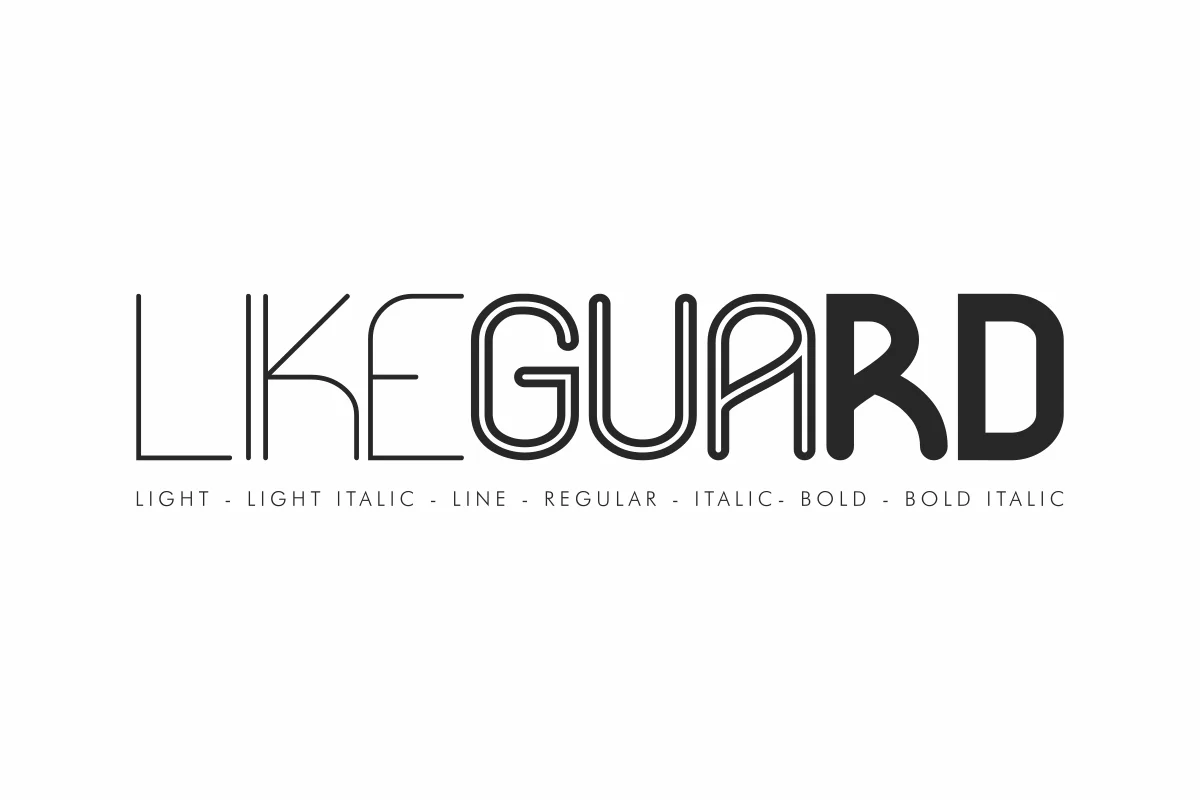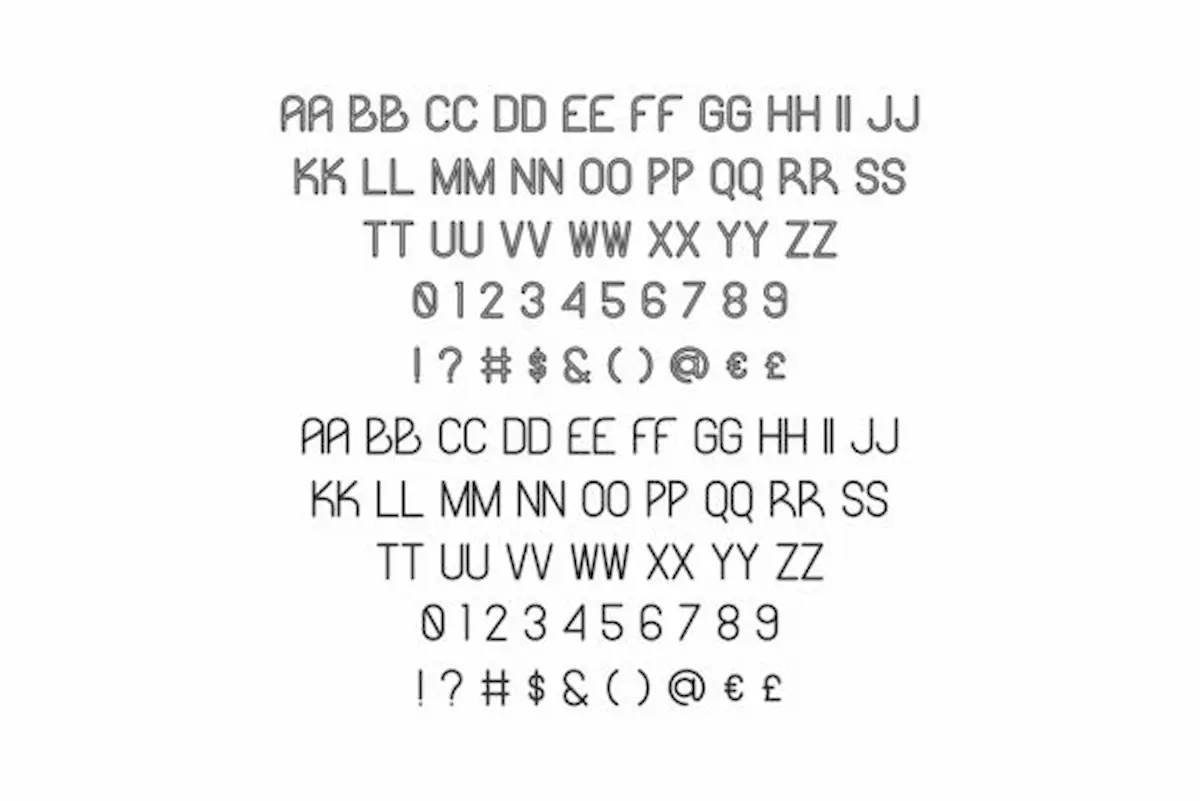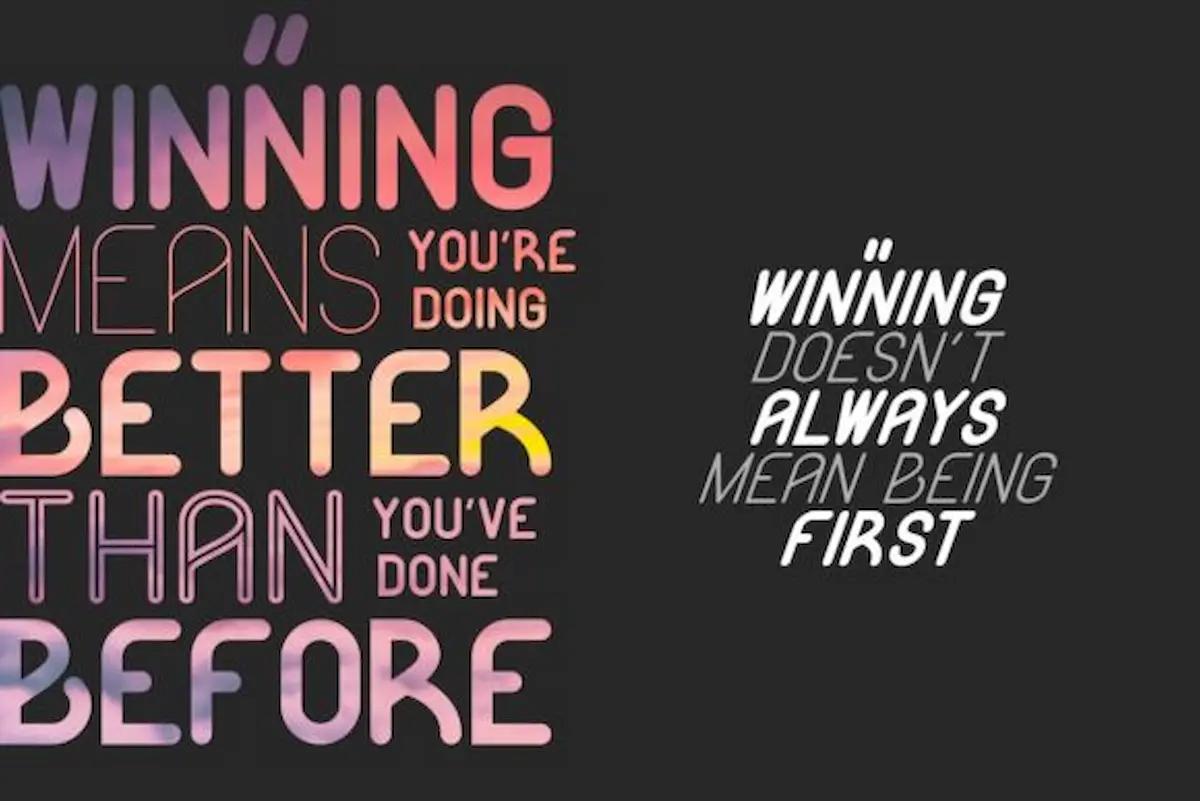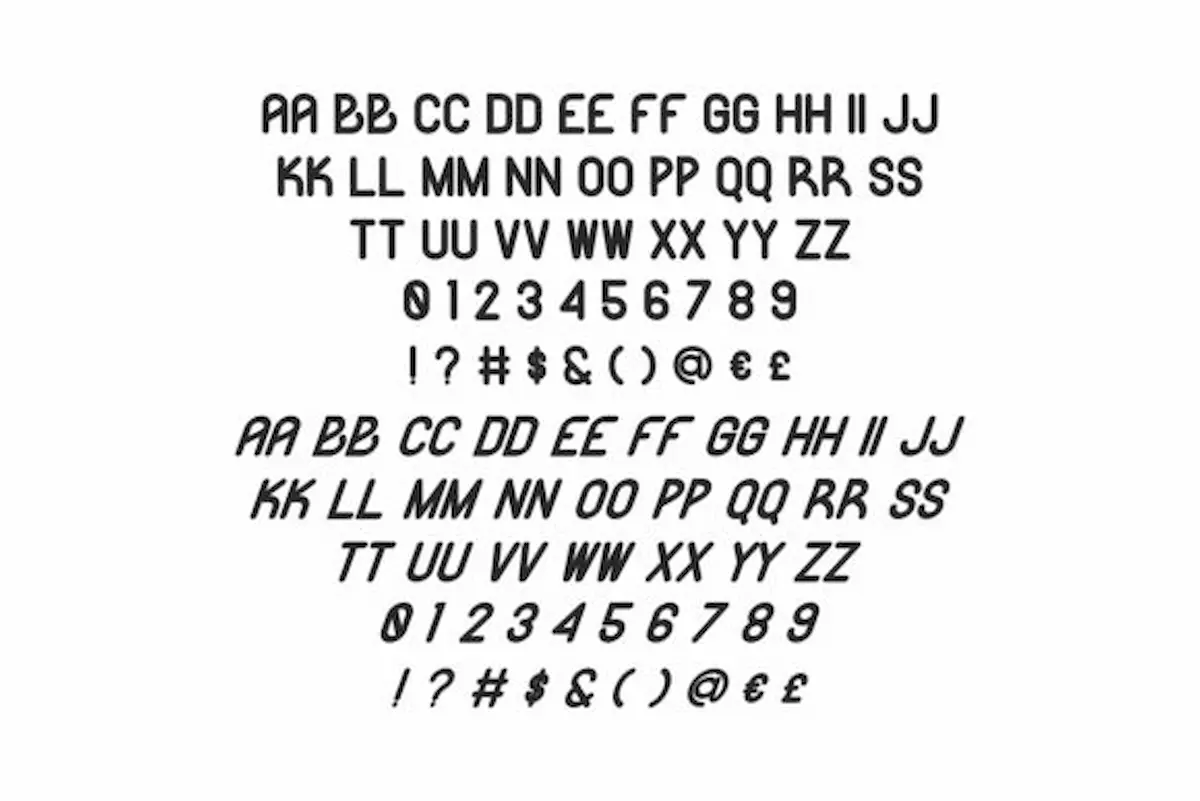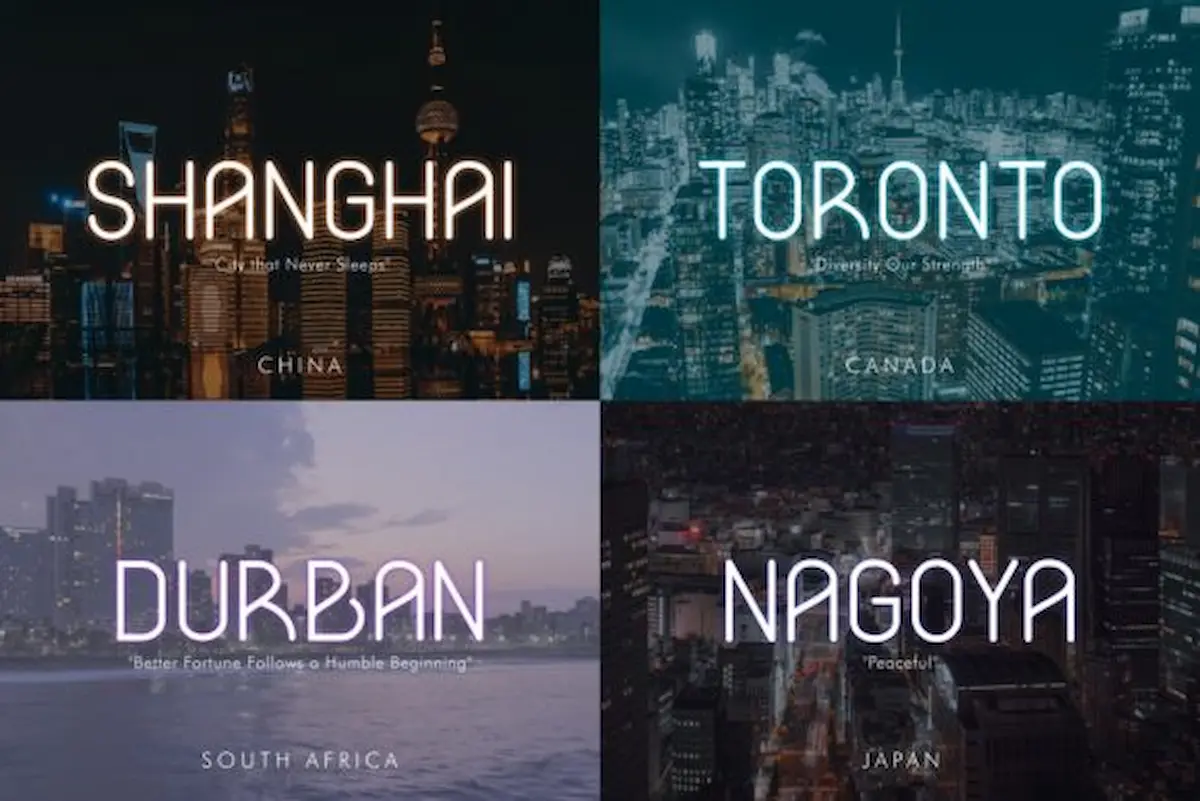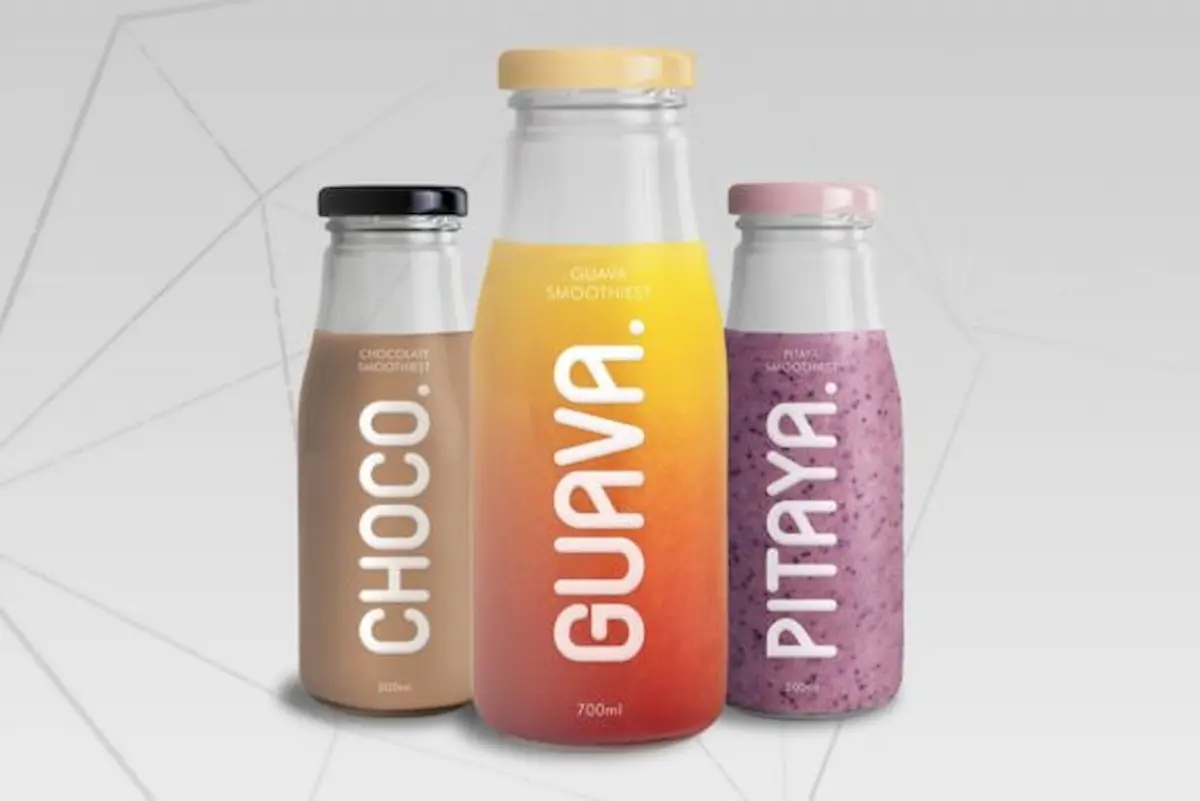
Likeguard Font is a sans serif display font by NihStudio, made in 2020
likeguard Font is a sans serif display font family with seven different styles : Reguler, line, bold, bold italic, light, light italic. Originally made by NihStudio Font Designers : Nouval and Sarah. On the package you will get :
Handcrafted here in our Studio , Indonesia. Likeguard Font will be great for any projects (require extended license) including : branding, logo, stationery, business card, signage, flyer, brochure etc.